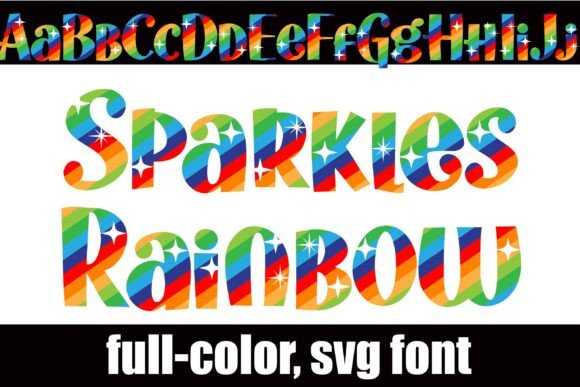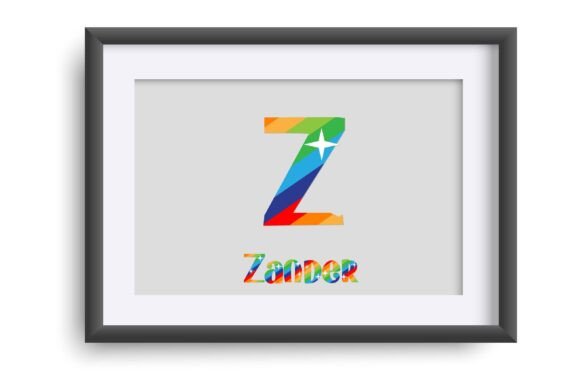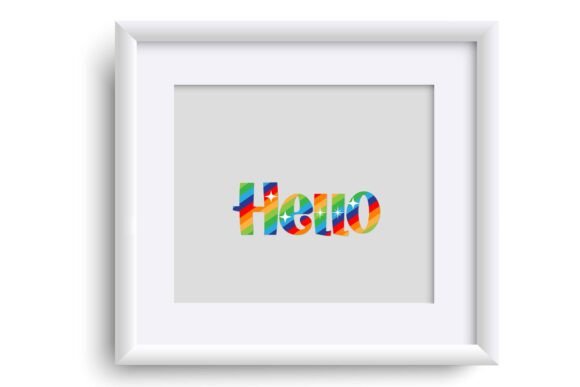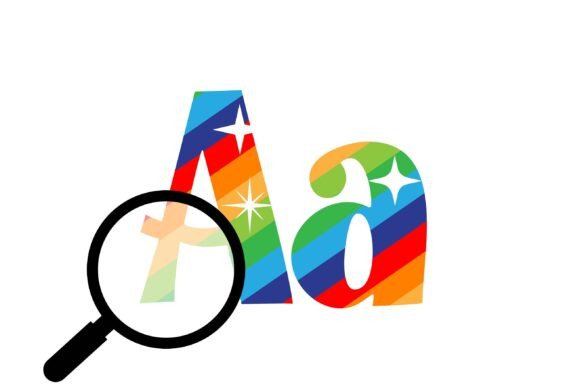
Sparkles Rainbow Font
About the Sparkles Rainbow Font
Welcome to the world of Sparkles Rainbow Font, a typeface that will inspire your next great project. This full-color font features a whimsical font in a rainbow stripe. There is an alt case of reverse rainbow of each letter that you can access through your system or Silhouette’s glyph map.